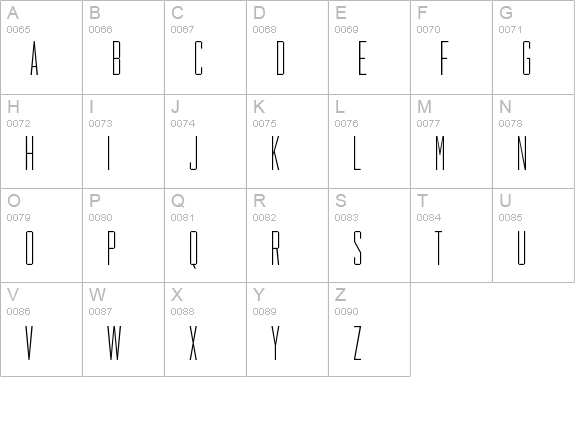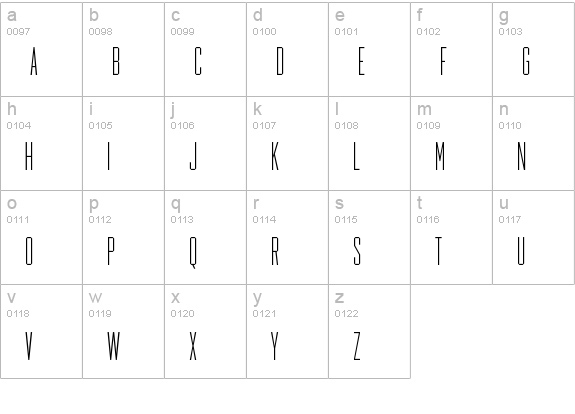
HeraldGothic-LightSmallCaps Font Details
HeraldGothic-LightSmallCaps font is a stylish and elegant typeface that exudes sophistication and modernity. With its sleek design and small caps format, this font is perfect for adding a touch of refinement to any project. The clean lines and delicate curves of HeraldGothic-LightSmallCaps make it ideal for use in branding, logo design, and editorial layouts. What's even better is that this font is completely free to download at FontsMarket.com. Whether you're a designer looking to elevate your work or a content creator searching for a unique typography solution, HeraldGothic-LightSmallCaps is a versatile choice that won't cost you a dime. Download it now and enhance your projects with this stunning typeface.